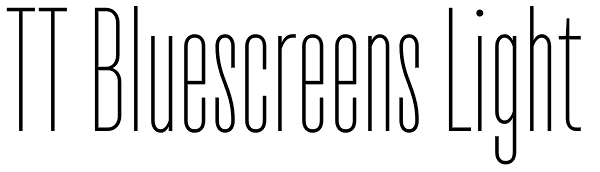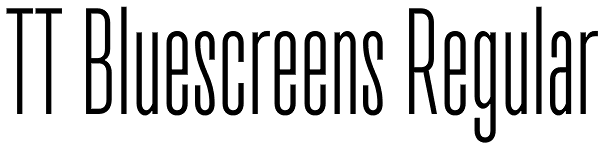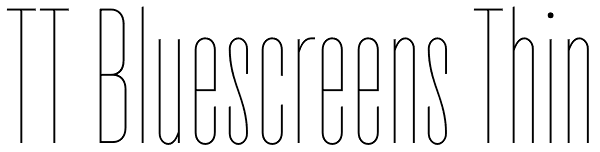
TT Bluescreens
Blockbusters, posters, titles and movie trailers — now we have created the perfect font family for this. Bluescreens — a high-quality font family which is designed specifically for cinephiles and directors. Condensed style contains five most popular...